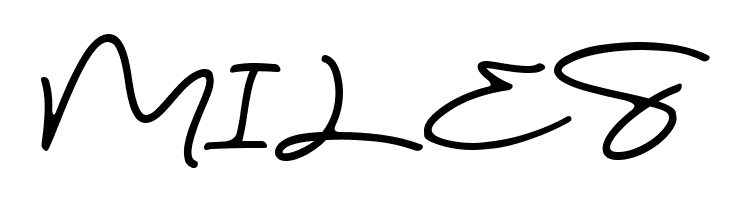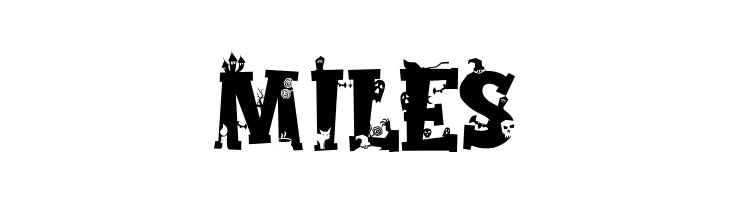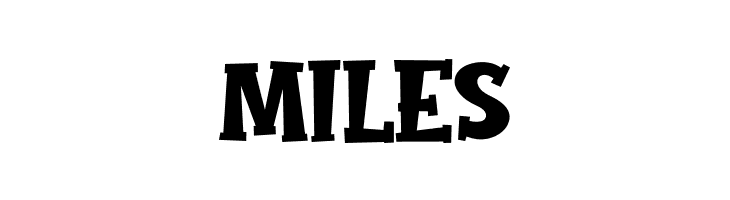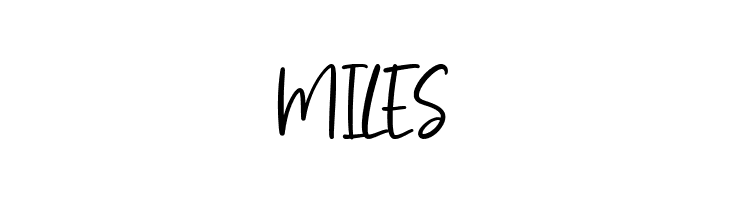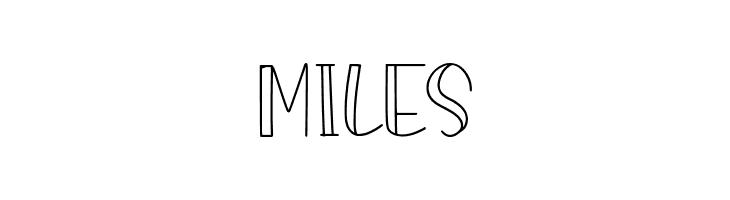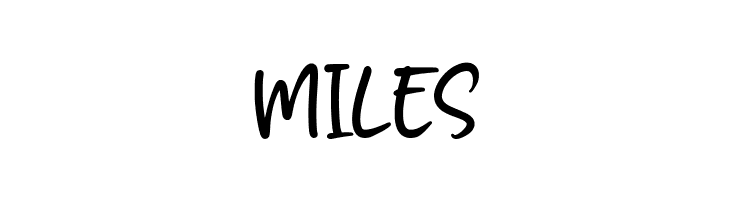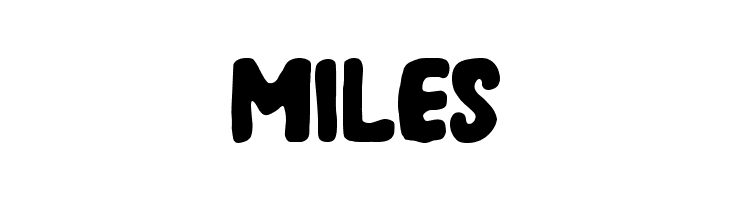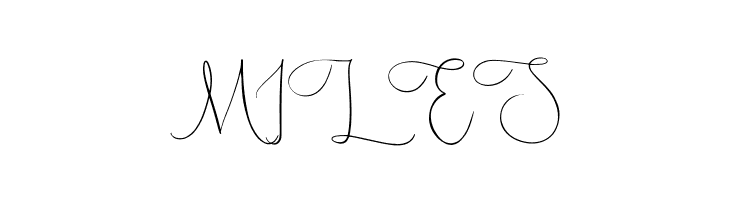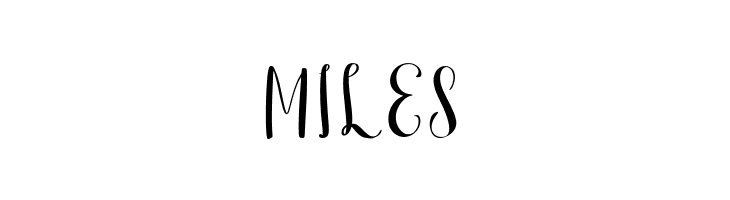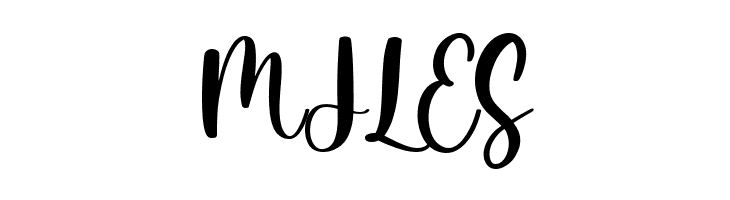
An elegant, flowing script font with intricate letterforms and graceful curves.
A bold, brush-style font with high contrast and dynamic strokes.
A graceful and flowing script font with elegant, hand-drawn characteristics.
A high-contrast serif font with elegant, modern styling.
A bold, textured hand-drawn font with a rugged, artistic style.
A dynamic, elegant handwritten font with fluid, expressive letterforms.
A modern, elegant font with high contrast and sleek, elongated characters.
A bold and expressive script font with dynamic, flowing letterforms.
A flowing, cursive font with elegant, connected strokes and a playful yet sophisticated style.
A bold, playful font with a whimsical, hand-drawn style.
A playful, Halloween-themed decorative font with bold, illustrated characters.
An elegant and flowing script font with graceful, connected letterforms.
A playful, casual handwritten font with smooth, flowing lines.
A bold, playful font with rounded edges and a dynamic slant.
A bold, modern font with strong, impactful characters.
A bold, italic font with dynamic, slanted letterforms for a modern and energetic look.
A bold, decorative font with high contrast and elegant flourishes.
A bold, playful handwritten font with a lively and casual style.
A playful, bold font with rounded, thick strokes and a whimsical touch.
A graceful and flowing script font with elegant, cursive strokes.
A whimsical, flowing script font with elegant, playful curves.
A whimsical and flowing script font with elegant, dynamic letterforms.
A playful, hand-drawn font with rounded edges and a whimsical style.
A whimsical, cursive font with elegant loops and swirls.
A whimsical, handwritten font with playful, irregular characters.
A bold, hand-painted font with an expressive and dynamic style.
A playful, handwritten font with bold, rounded characters and a whimsical style.
A playful and modern font with tall, narrow letters and consistent stroke width.
A lively, playful handwritten font with fluid strokes and a casual elegance.
A whimsical script font with flowing, interconnected letterforms and decorative swirls.
A dynamic brush script font with fluid, expressive strokes.
A lively, handwritten script font with medium contrast and elegant curves.
A lively cursive script font with fluid, connected letters and elegant curves.
A bold, handwritten font with dynamic strokes and playful curves.
A stylish and elegant script font with fluid, flowing letterforms.